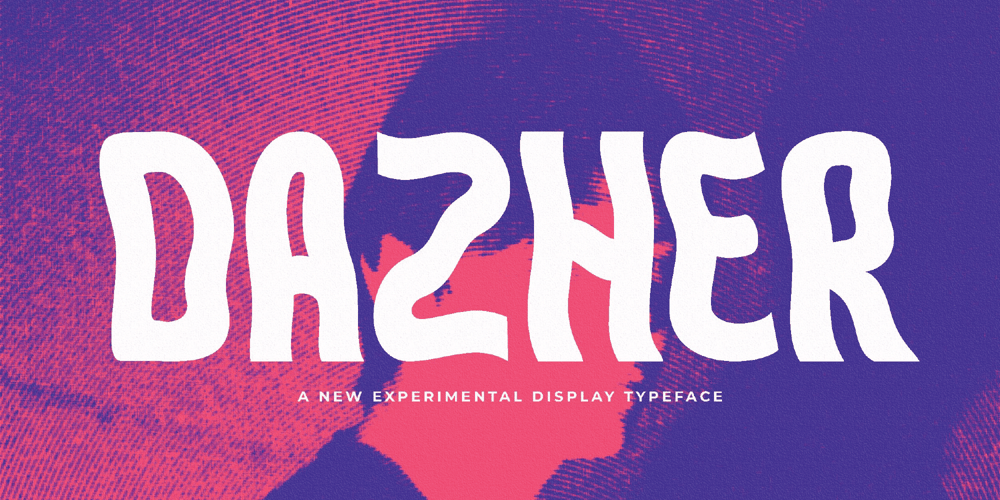
Dazher Font Family was designed by Achmad Yani and published by Flawlessandco. Dazher contains 1 styles and family package options. Introducing “Dazher,” a display sans-serif font that transcends the ordinary, elevating your designs with its distinctive and modern appeal. Dazher is not just a typeface; it’s a bold statement, a design element that captures attention and adds a touch of contemporary flair to your creative projects.There’s some connected letters and some alternates that suitable for any graphic designs such as branding materials, t-shirt, print, business cards, logo, poster, t-shirt, photography, quotes .etcThis font support for some multilingual. Also contains uppercase A-Z and lowercase a-z, alternate character, numbers 0-9, and some punctuation.If you need help, just write me! Thanks so much for checking out my shop!